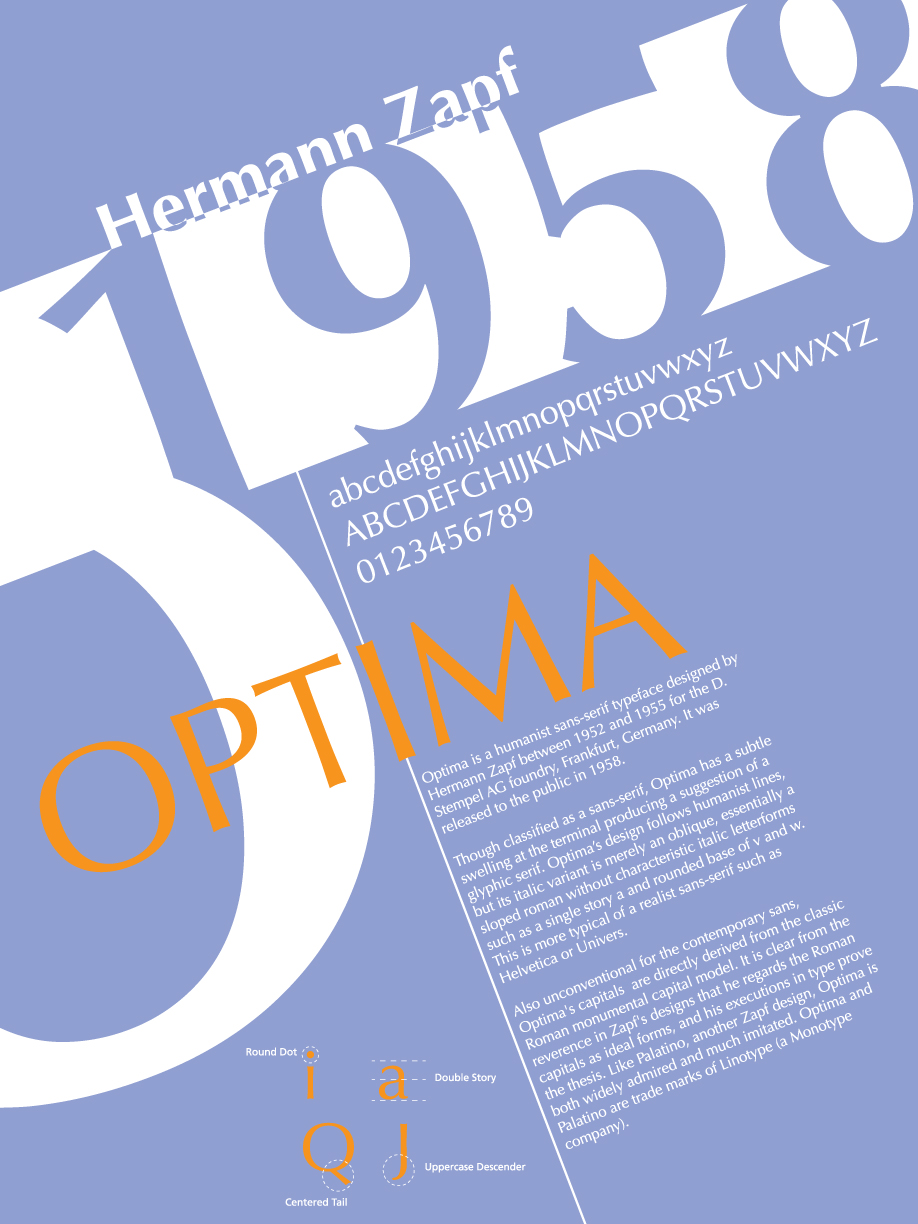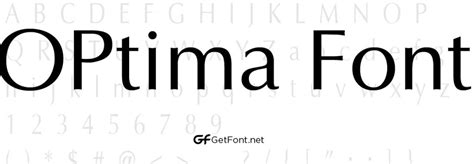
Optima Font History - In 1950, zapf was researching italian typeface design at the basilica di santa croce, in. Some of the lines are a little. It was designed by hermann zapf. Stempel ag foundry in frankfurt, west germany, optima. Released in 1958 by the d. Optima is a sans serif typeface.
Optima is a sans serif typeface. In 1950, zapf was researching italian typeface design at the basilica di santa croce, in. Stempel ag foundry in frankfurt, west germany, optima. Released in 1958 by the d. It was designed by hermann zapf. Some of the lines are a little.
It was designed by hermann zapf. Released in 1958 by the d. In 1950, zapf was researching italian typeface design at the basilica di santa croce, in. Optima is a sans serif typeface. Some of the lines are a little. Stempel ag foundry in frankfurt, west germany, optima.
Stempel ag foundry in frankfurt, west germany, optima. Released in 1958 by the d. Optima is a sans serif typeface. Some of the lines are a little. It was designed by hermann zapf.
It was designed by hermann zapf. In 1950, zapf was researching italian typeface design at the basilica di santa croce, in. Some of the lines are a little. Stempel ag foundry in frankfurt, west germany, optima. Released in 1958 by the d.
Some of the lines are a little. In 1950, zapf was researching italian typeface design at the basilica di santa croce, in. Optima is a sans serif typeface. Released in 1958 by the d. Stempel ag foundry in frankfurt, west germany, optima.
It was designed by hermann zapf. Some of the lines are a little. Stempel ag foundry in frankfurt, west germany, optima. Optima is a sans serif typeface. In 1950, zapf was researching italian typeface design at the basilica di santa croce, in.
Stempel ag foundry in frankfurt, west germany, optima. In 1950, zapf was researching italian typeface design at the basilica di santa croce, in. Some of the lines are a little. It was designed by hermann zapf. Optima is a sans serif typeface.
Released in 1958 by the d. Optima is a sans serif typeface. Stempel ag foundry in frankfurt, west germany, optima. It was designed by hermann zapf. In 1950, zapf was researching italian typeface design at the basilica di santa croce, in.
Some of the lines are a little. It was designed by hermann zapf. Stempel ag foundry in frankfurt, west germany, optima. Optima is a sans serif typeface. In 1950, zapf was researching italian typeface design at the basilica di santa croce, in.
Stempel ag foundry in frankfurt, west germany, optima. It was designed by hermann zapf. In 1950, zapf was researching italian typeface design at the basilica di santa croce, in. Optima is a sans serif typeface. Some of the lines are a little.
It was designed by hermann zapf. In 1950, zapf was researching italian typeface design at the basilica di santa croce, in. Some of the lines are a little. Released in 1958 by the d. Optima is a sans serif typeface.
It Was Designed By Hermann Zapf.
Optima is a sans serif typeface. Released in 1958 by the d. Some of the lines are a little. In 1950, zapf was researching italian typeface design at the basilica di santa croce, in.